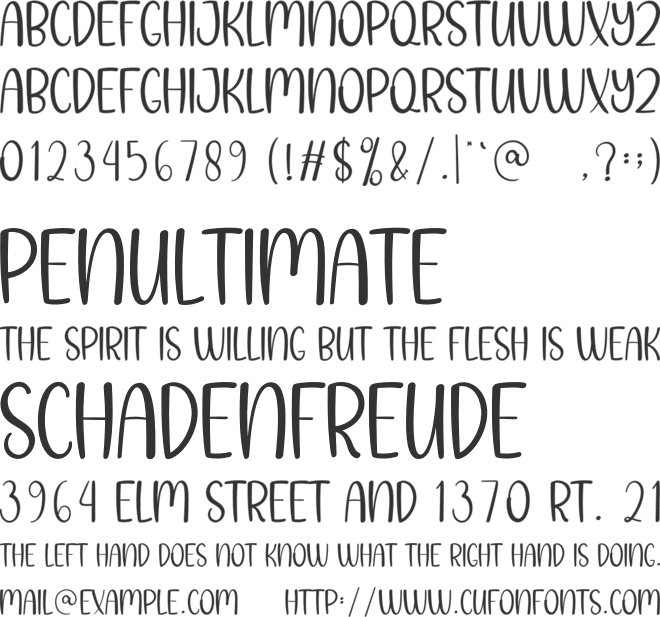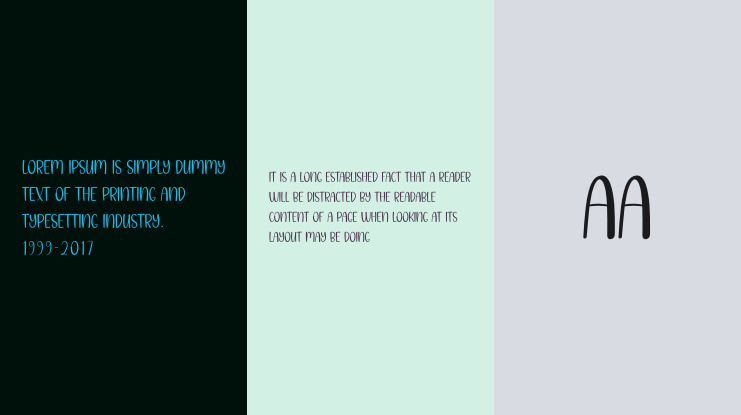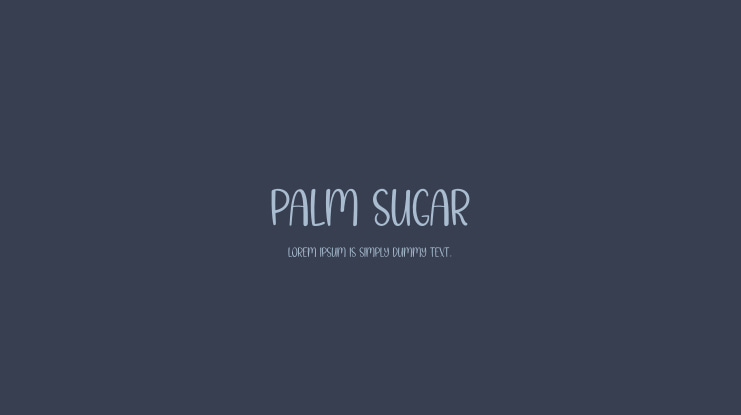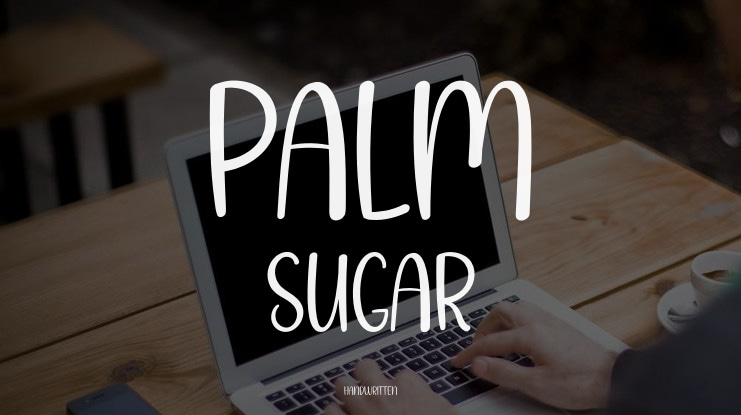
Palm Sugar Font
Our unique products are designed to provide you with an exceptional experience. Whether it's for wall displays, wedding invitations, social media posts, logos, advertisements, product packaging, photography, or any other project that requires elegant handwriting, our latest style letters are the perfect choice.
Palm Sugar font preview